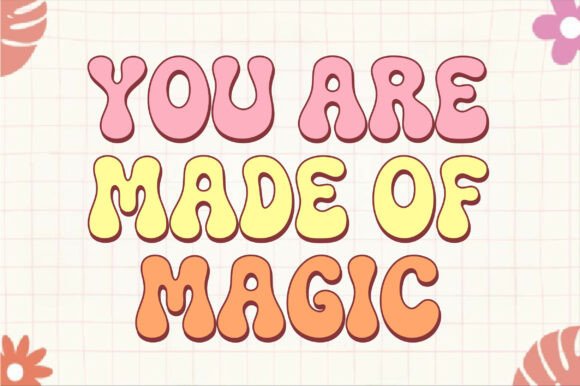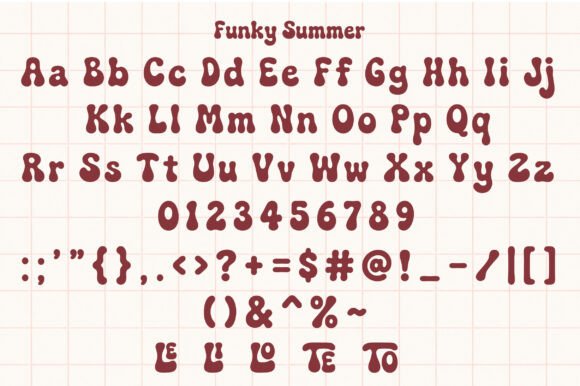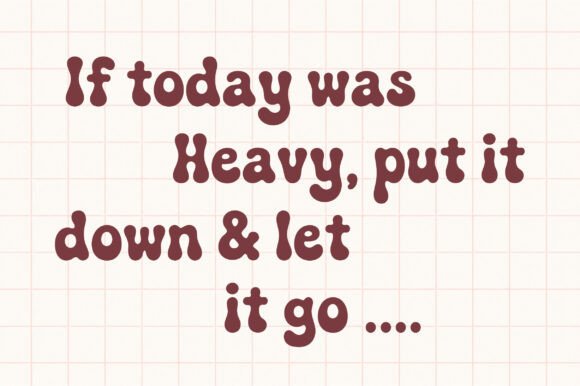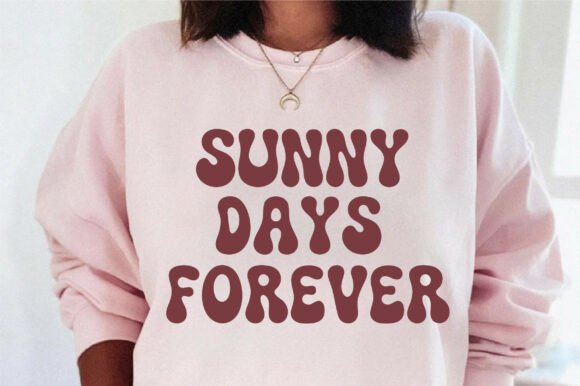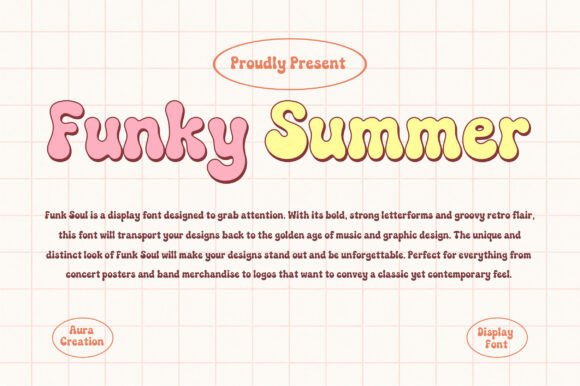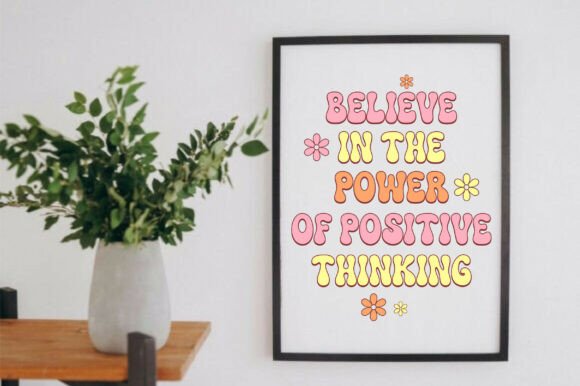
Funky Summer Font: Bringing Retro Groovy Vibes to Your Designs
Are you ready to add a dash of fun and playfulness to your designs? Look no further than the Funky Summer Font, a bold and bubbly display font that’s perfect for capturing the carefree spirit of summer. Inspired by sunshine vibes, beach days, and the fun energy of Christmas in July, this font is sure to bring a smile to your face and a retro groovy touch to your creations.
The Inspiration Behind Funky Summer Font
Funky Summer Font is a playful take on retro typography, drawing inspiration from the fun and carefree aesthetic of the 1970s. The font’s bold, bubbly letterforms are reminiscent of the hippie era, with a dash of modern flair that’s perfect for trendy summer designs. Whether you’re creating t-shirts, posters, tote bags, or stickers, this font is sure to add a fun and playful touch that’s sure to grab attention.
Key Features of Funky Summer Font
- Bold and Bubbly Letterforms: Funky Summer Font features bold, bubbly letterforms that are perfect for creating eye-catching designs.
- 70s Hippie-Inspired Aesthetic: The font’s retro groovy aesthetic is inspired by the fun and carefree vibe of the 1970s.
- Perfect for Summer Designs: Whether you’re creating designs for summer t-shirts, posters, or stickers, Funky Summer Font is the perfect choice.
- Trendy and Modern: Despite its retro inspiration, Funky Summer Font has a modern flair that’s perfect for trendy designs.
Uses for Funky Summer Font
Funky Summer Font is a versatile font that’s perfect for a wide range of design projects, including:
- T-Shirts: Add a fun and playful touch to your t-shirt designs with Funky Summer Font.
- Posters: Create eye-catching posters for summer events or promotions with this bold and bubbly font.
- Tote Bags: Add a retro groovy touch to your tote bag designs with Funky Summer Font.
- Stickers: Create fun and playful stickers for summer events or promotions with this font.
- Branding: Use Funky Summer Font to add a dash of fun and personality to your brand’s designs.
Why Choose Funky Summer Font?
With so many fonts to choose from, why should you choose Funky Summer Font? Here are just a few reasons:
- Unique and Playful: Funky Summer Font is a unique and playful font that’s sure to grab attention.
- Easy to Read: Despite its bold and bubbly aesthetic, Funky Summer Font is easy to read and understand.
- Versatile: This font is perfect for a wide range of design projects, from t-shirts to posters to stickers.
- Trendy: Funky Summer Font has a modern flair that’s perfect for trendy summer designs.
If you’re looking for a fun and playful font that’s perfect for summer designs, look no further than Funky Summer Font. With its bold and bubbly letterforms, 70s hippie-inspired aesthetic, and modern flair, this font is sure to bring a dash of retro groovy vibes to your creations. Whether you’re a designer, crafter, or simply someone who loves to have fun, Funky Summer Font is the perfect choice for your next design project.